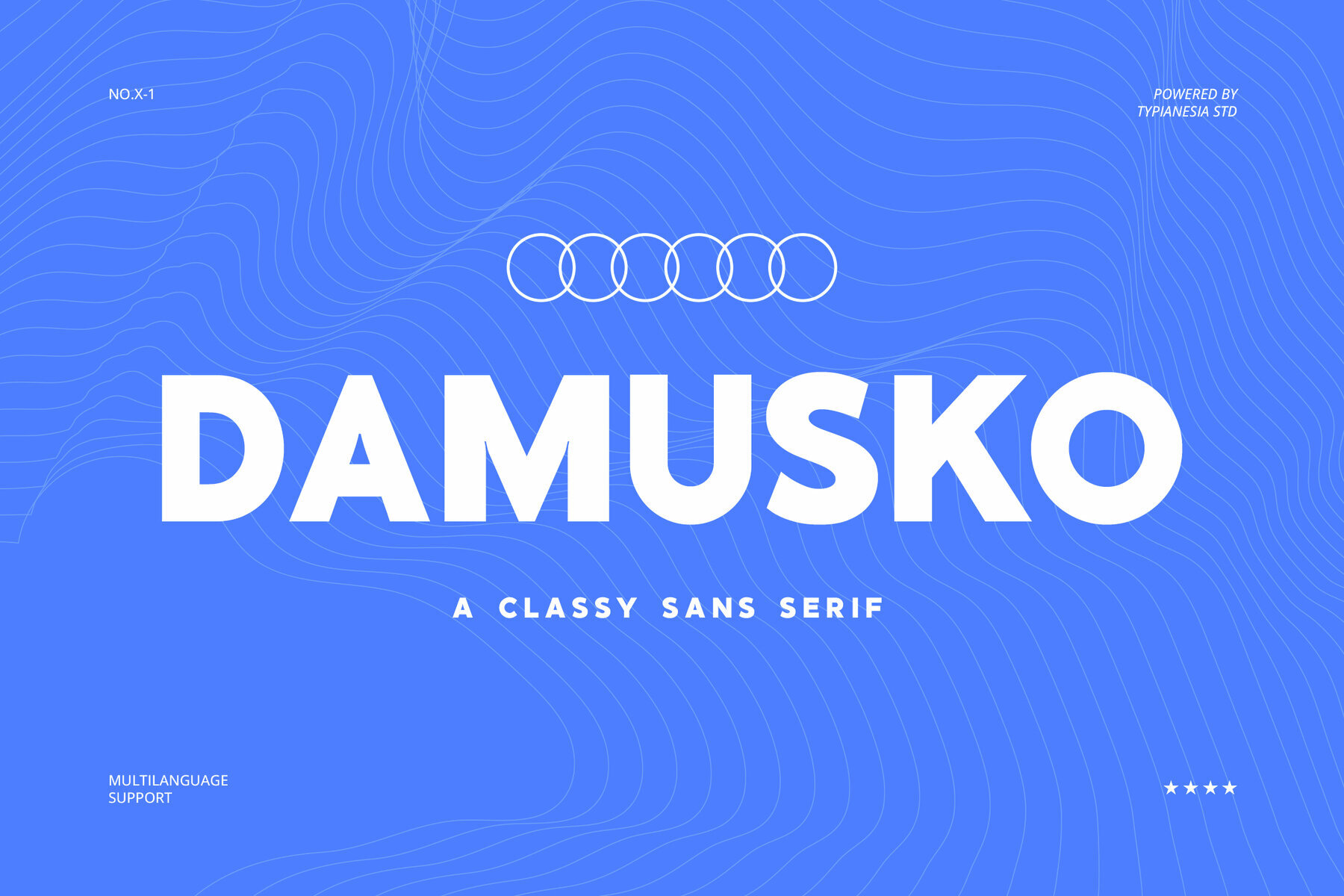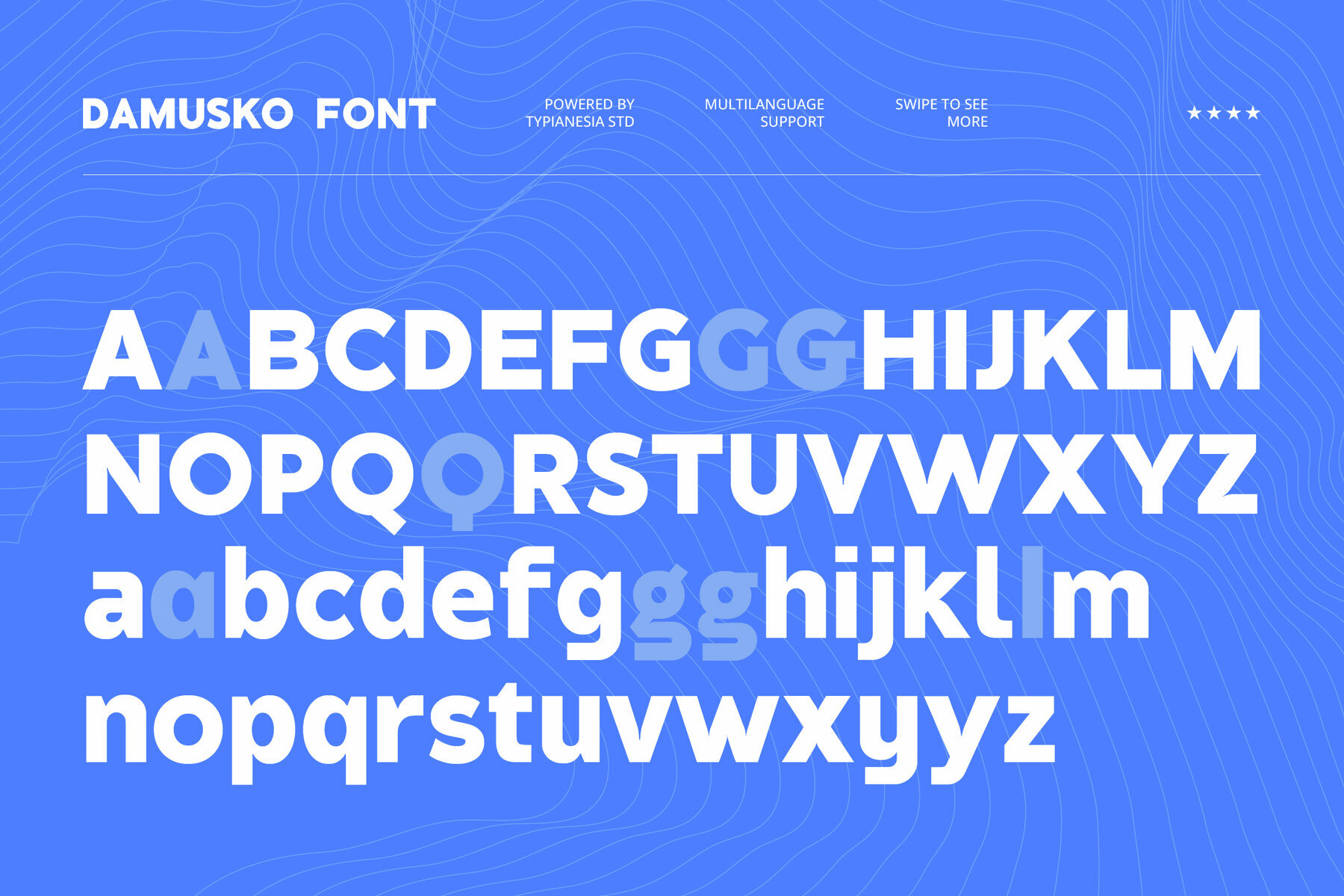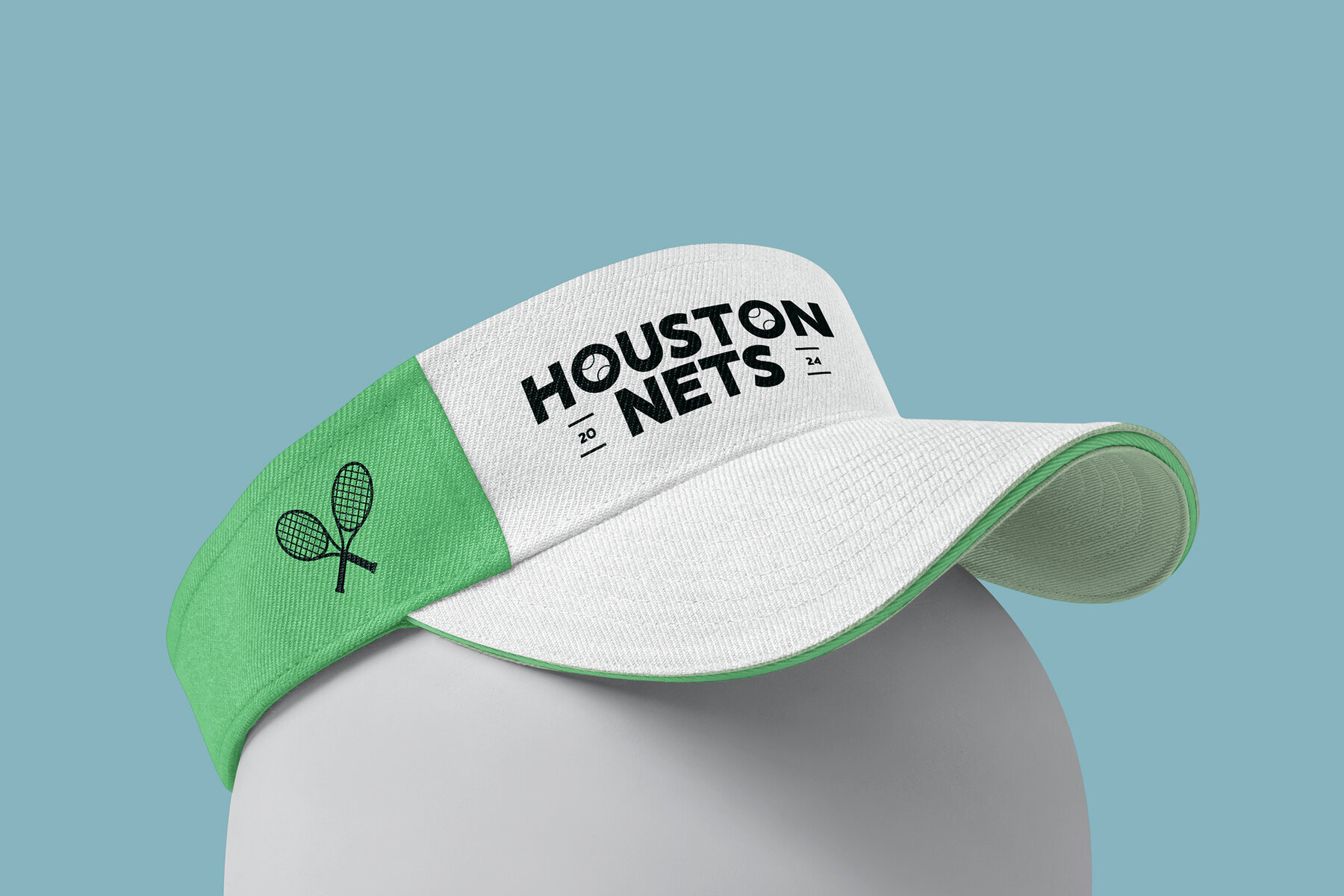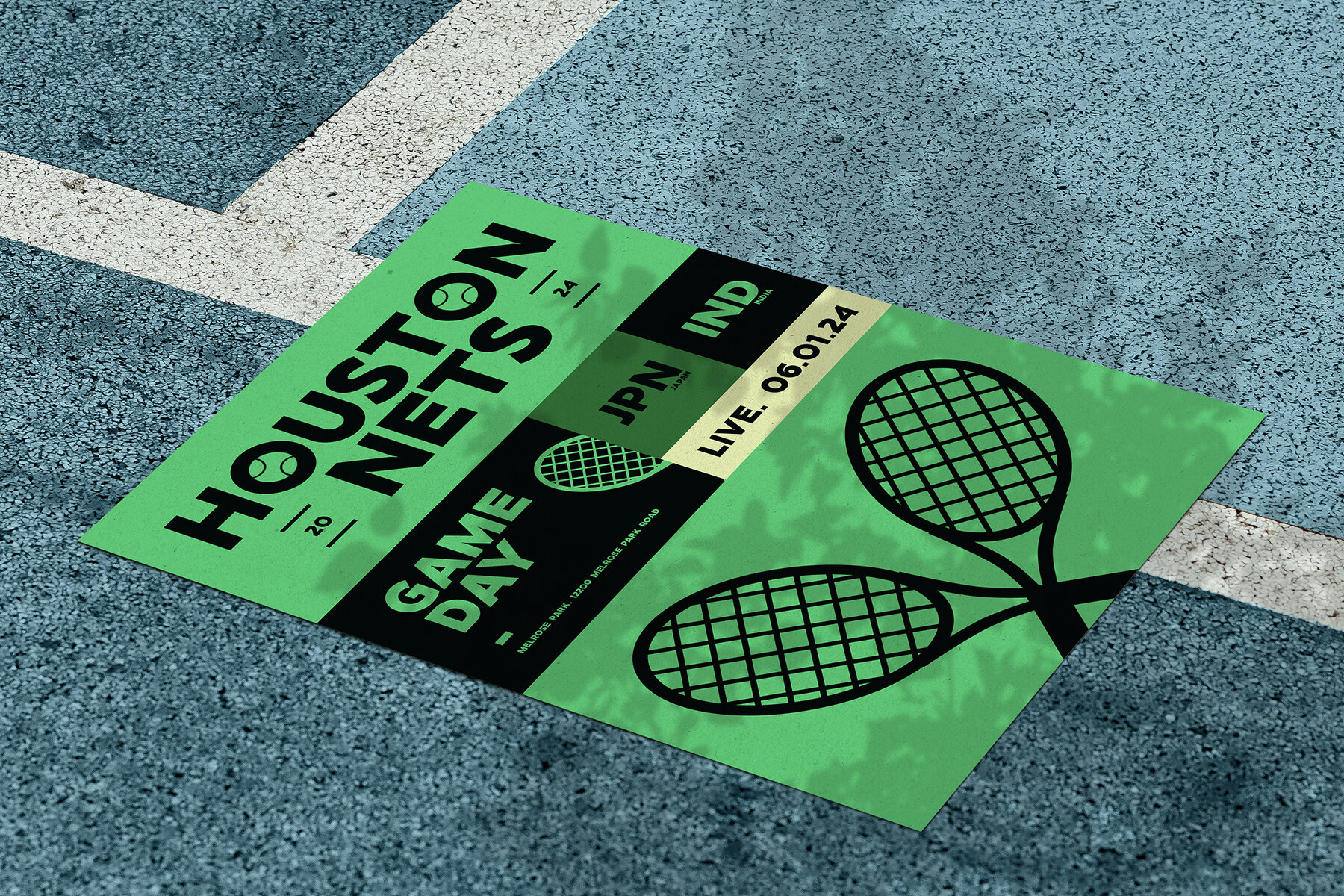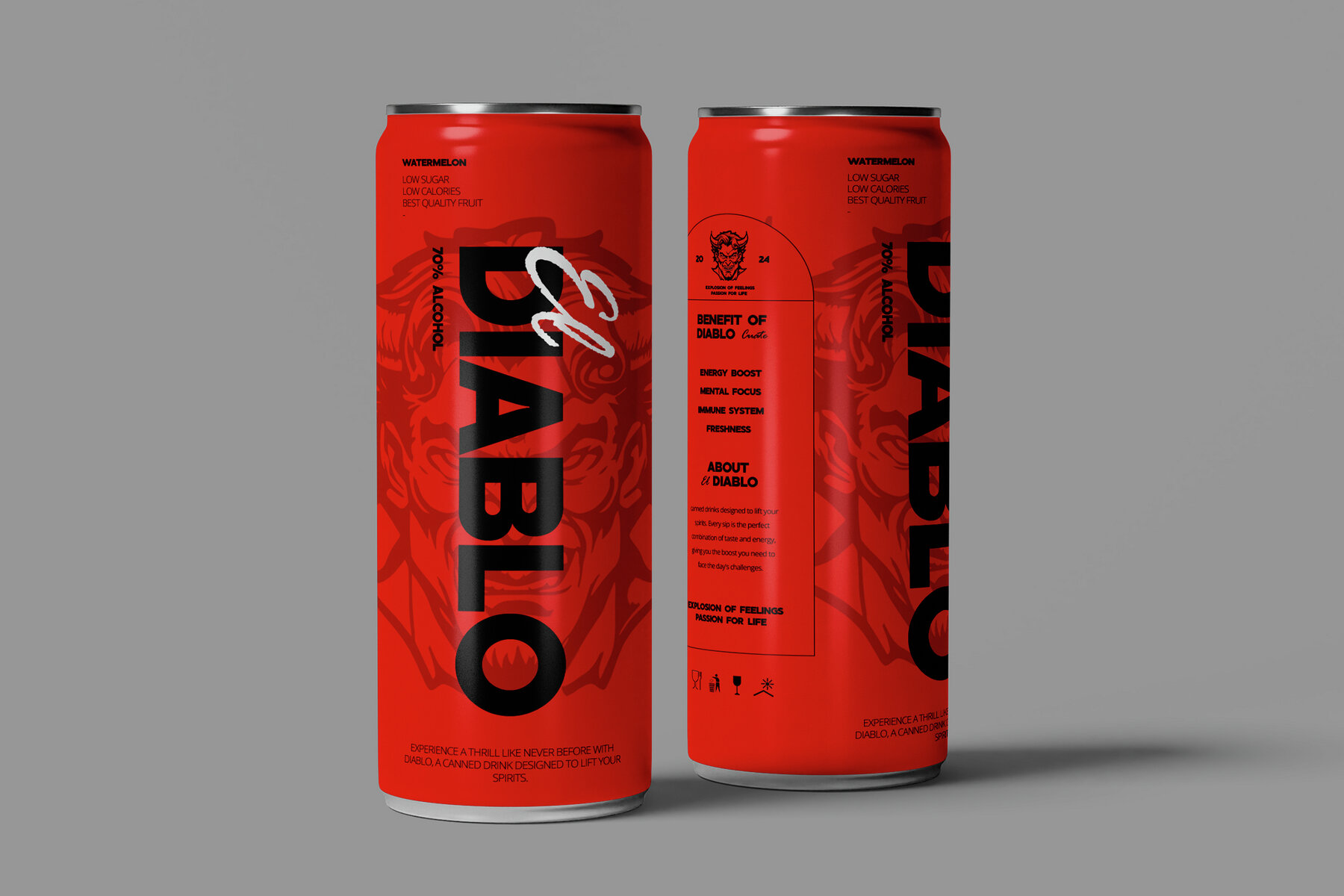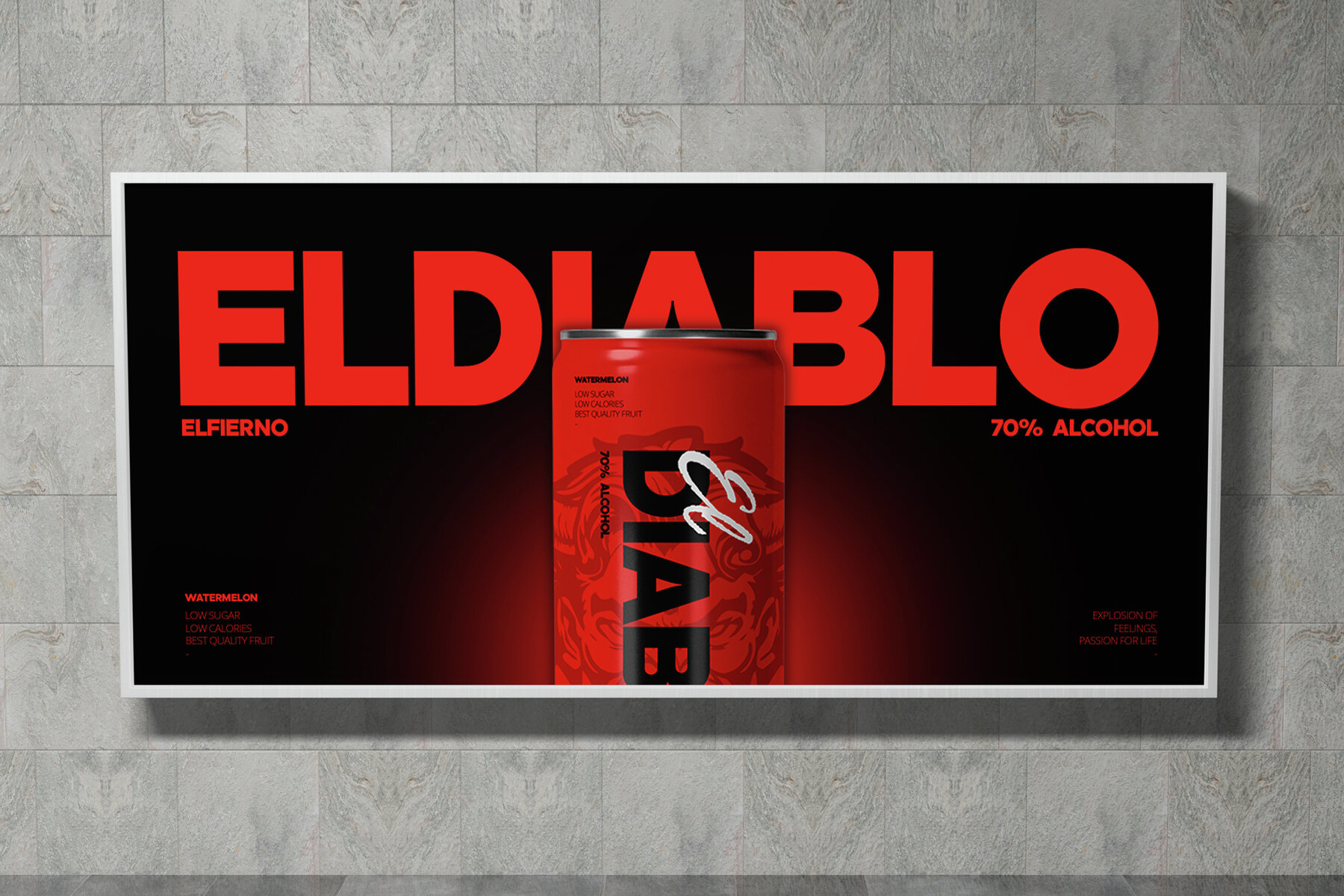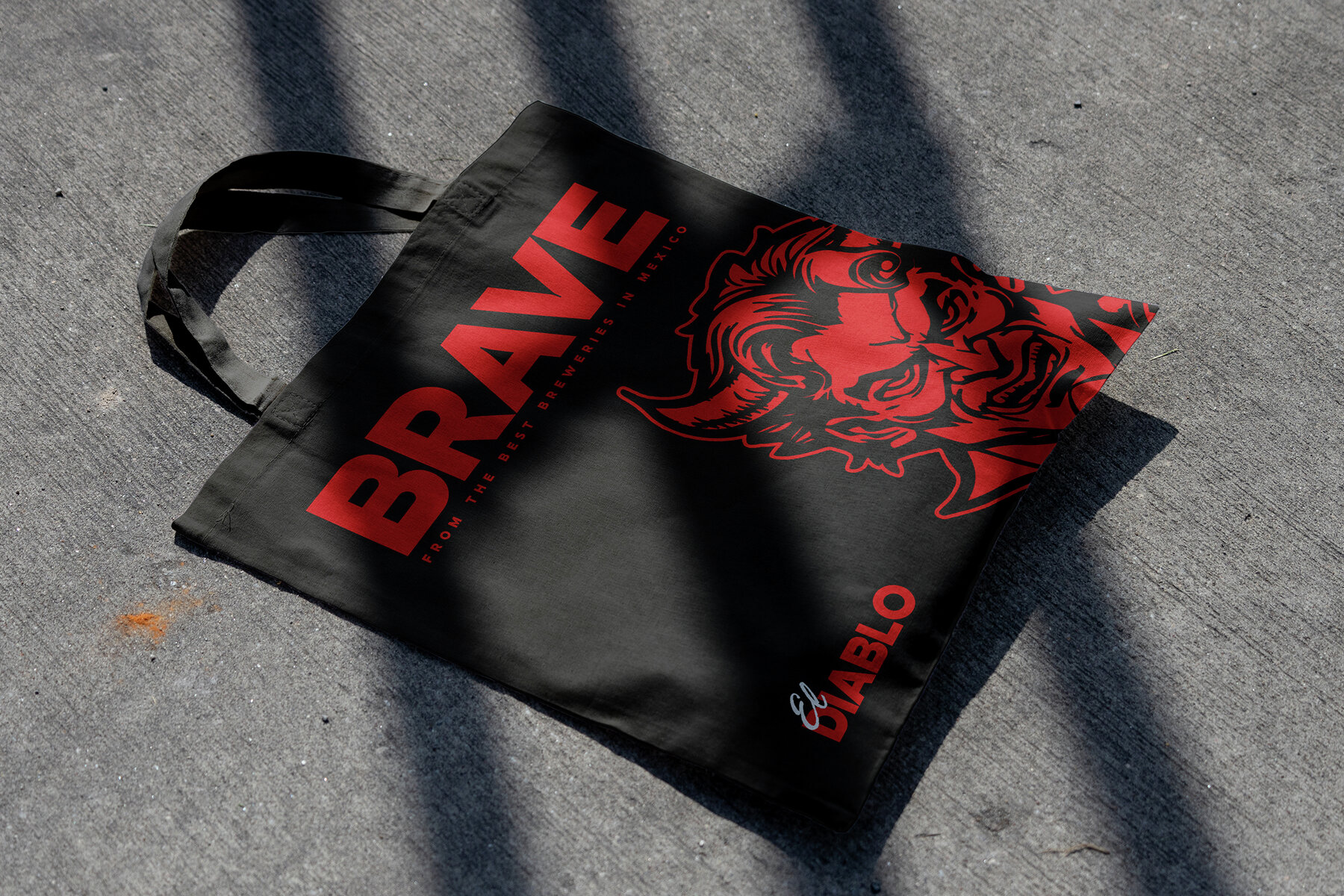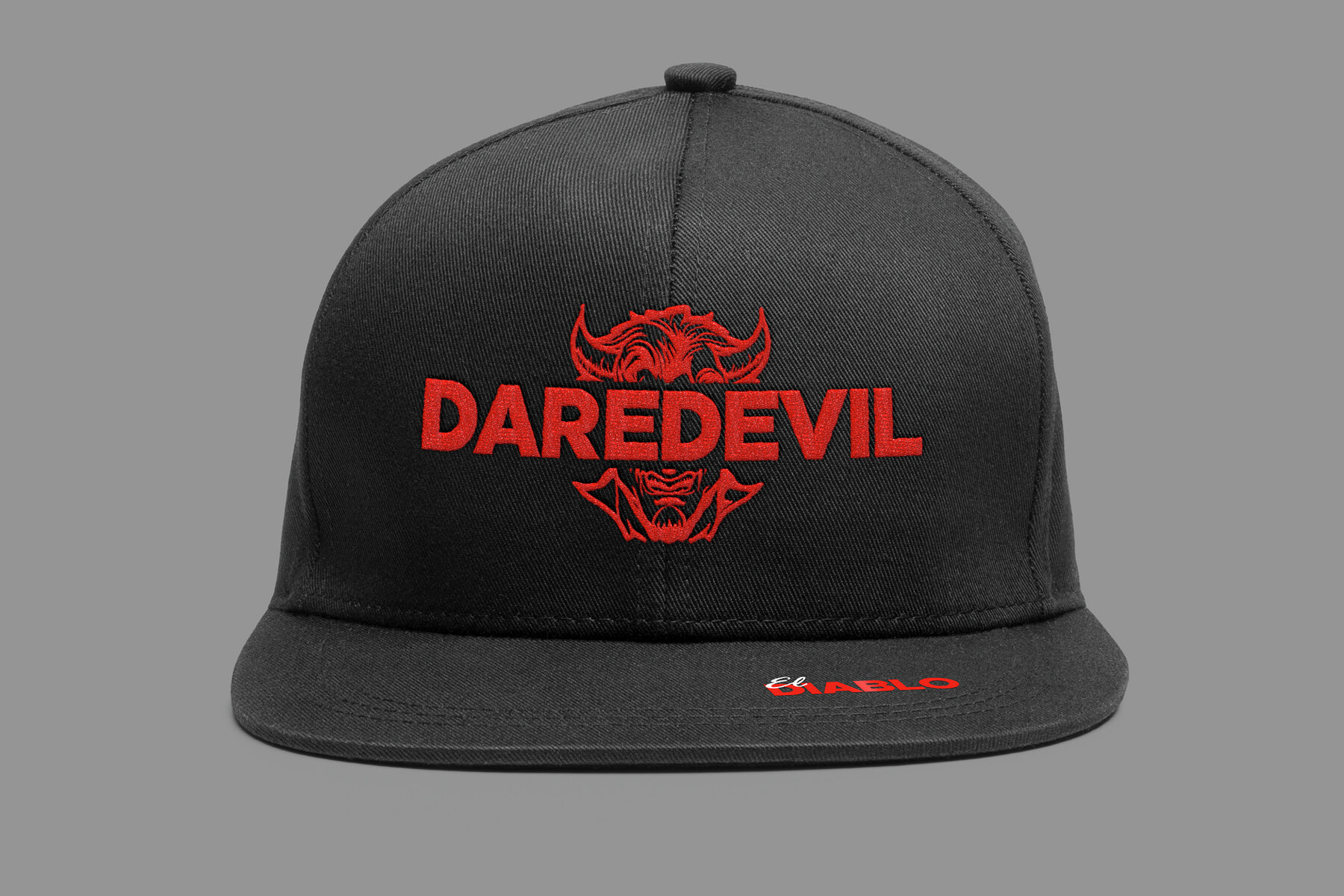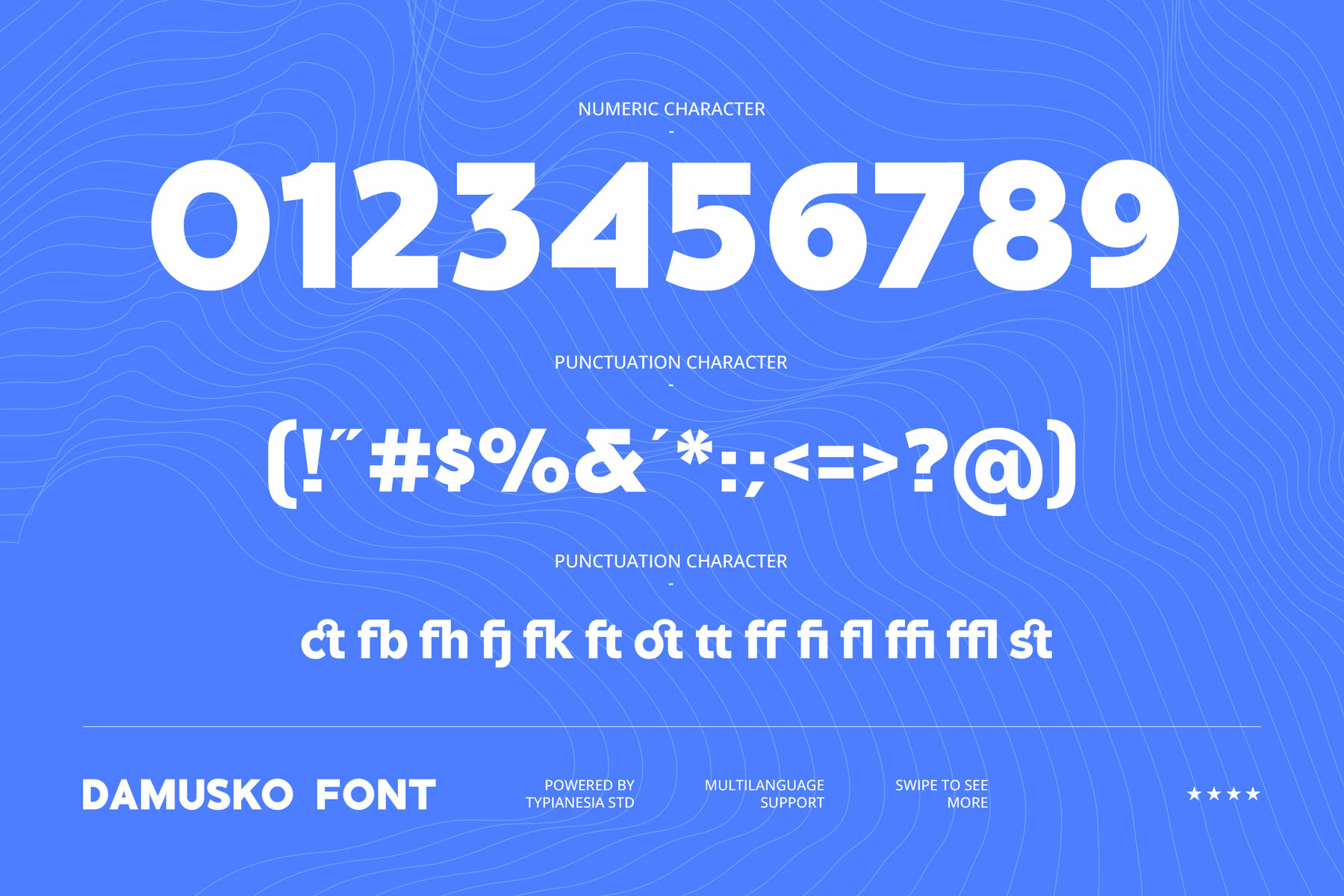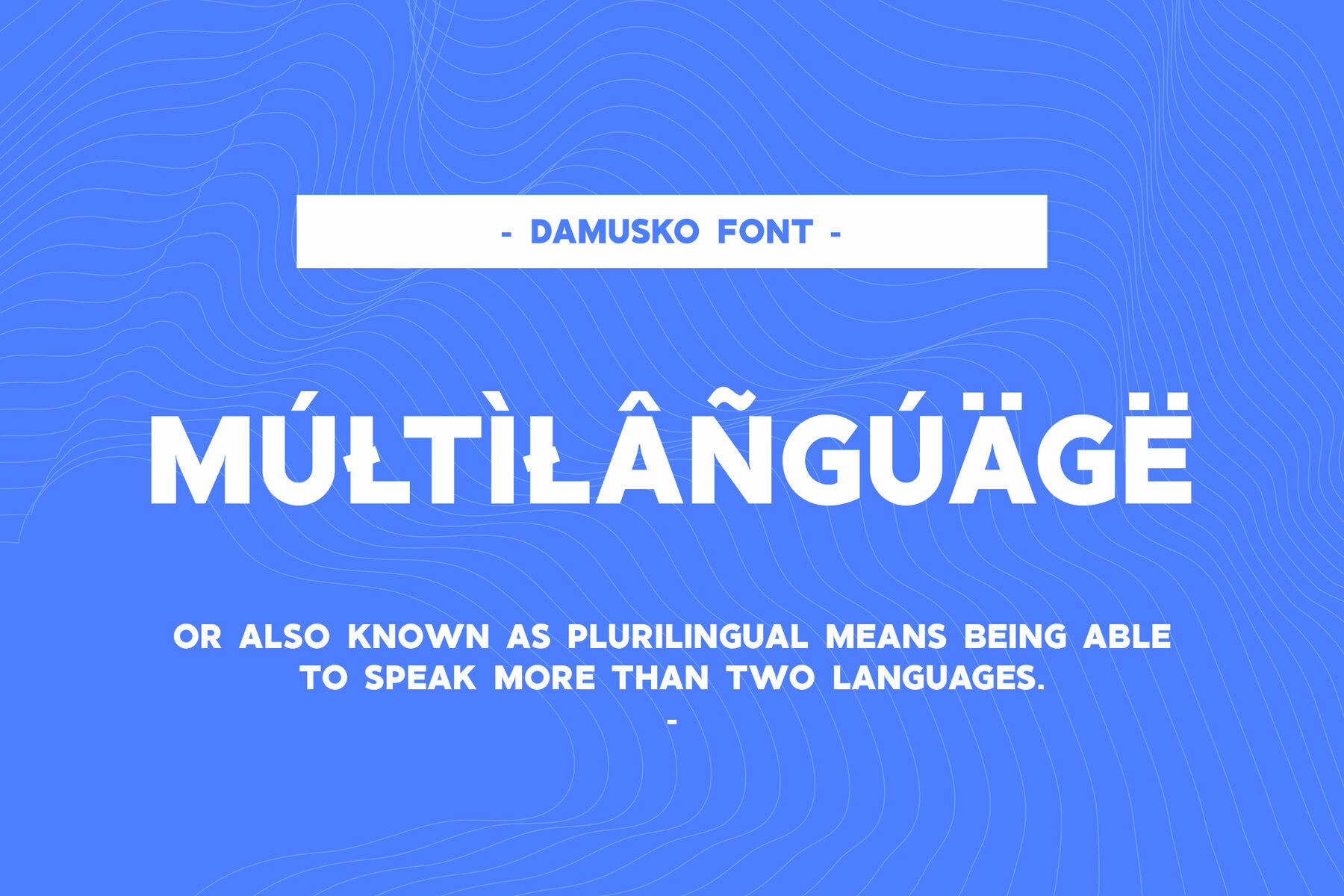
Damusko Font
Damusko Regular
Damusko is a sophisticated sans-serif font that merges boldness with modernity. With its clean lines and refined structure, it offers a contemporary yet elegant feel, perfect for projects requiring a stylish and impactful look. Ideal for branding, corporate identities, editorial design, website design, and product packaging, Damusko ensures your message stands out. It's equally effective in posters, flyers, and banners for promotional campaigns. The font seamlessly adapts to Signage, Display, Announcements, and Merchandise Design needs.
Featuring ligatures for smooth character combinations, Damusko includes a complete set of uppercase and lowercase letters, punctuation, numerals, and alternate characters. It also offers extensive multilingual support, making it versatile for global projects. Precision-designed with a keen awareness of modern typographic trends, its unique bold ink-trap design enhances readability, adding a distinct visual element. Damusko is a superb choice for designers seeking to create powerful and memorable designs.